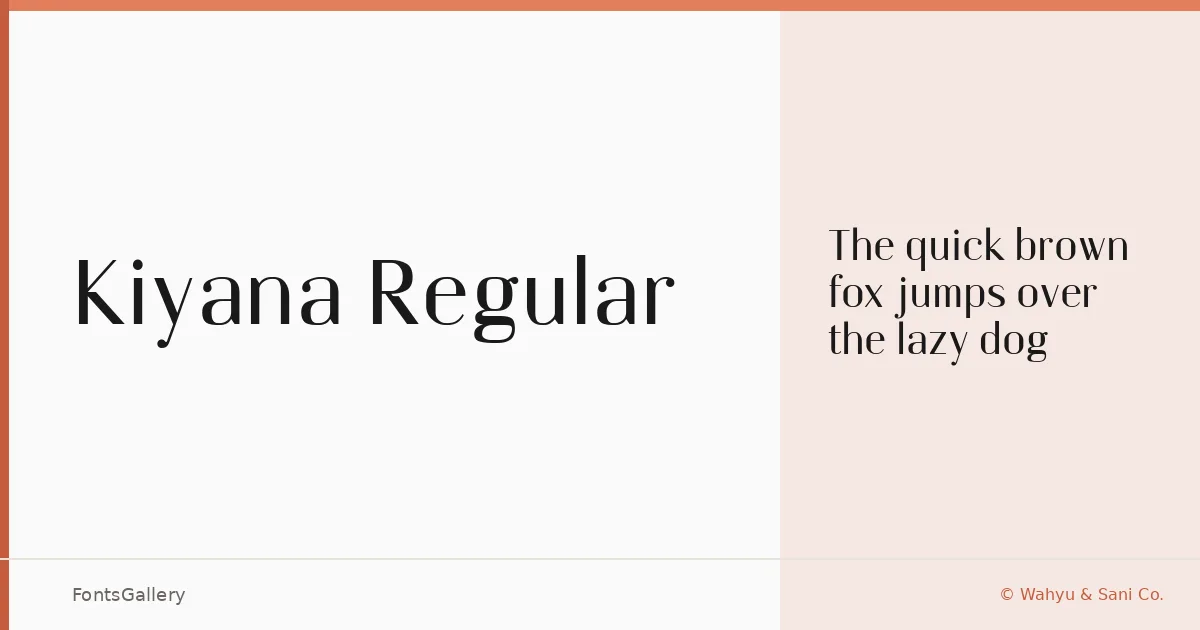
About Kiyana Regular Font
There is a particular composure to this serif — the kind that comes from careful attention to stroke contrast and letterform proportion. Kiyana Regular is a single-cut serif family from Wahyu & Sani Co., released under their copyright, and it carries the unhurried confidence of a display face that knows exactly where it belongs.
The mood here sits at the intersection of classic structure and modern restraint — elegant without being decorative, luxurious without leaning into ornament. The family offers one weight, a Regular, delivered as a TTF file, which keeps things focused. That single cut is well-suited to settings where the letterforms themselves need to carry the atmosphere rather than rely on a range of weights to do the work.
This is a face built for Latin-script work that demands presence: brand identities, logo lockups, magazine headers, and business cards where the serif's character sets a clear tone. For body copy or supporting text, it pairs naturally with Helvetica or Asap, and for moments where you want complementary personality, Armelie, Etna, and Kactigona each offer interesting contrast.